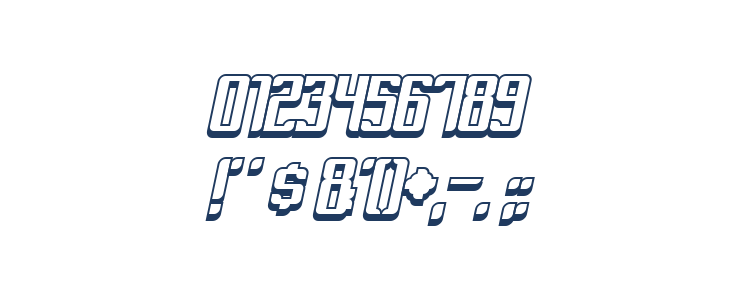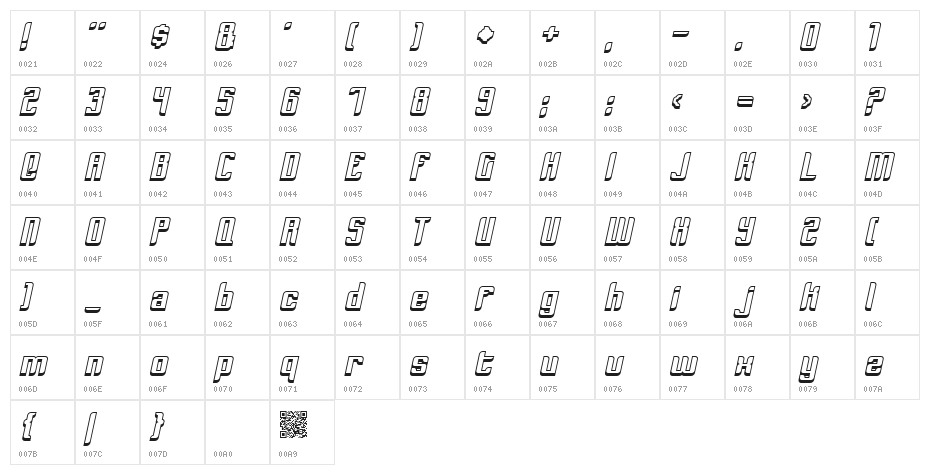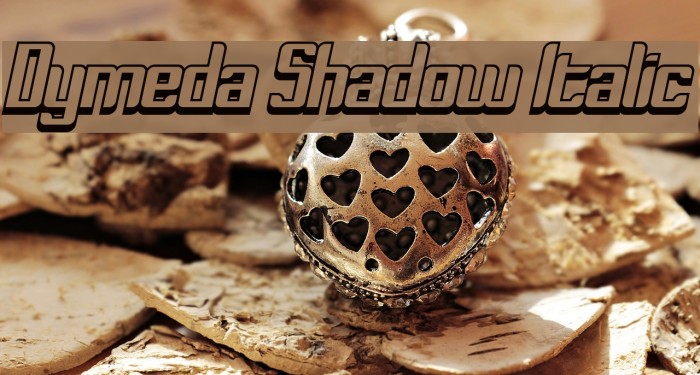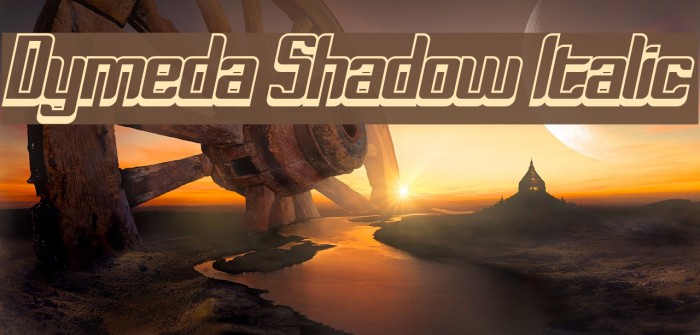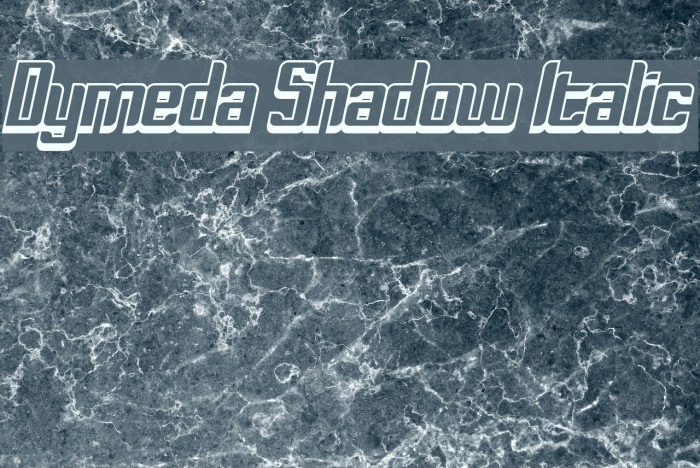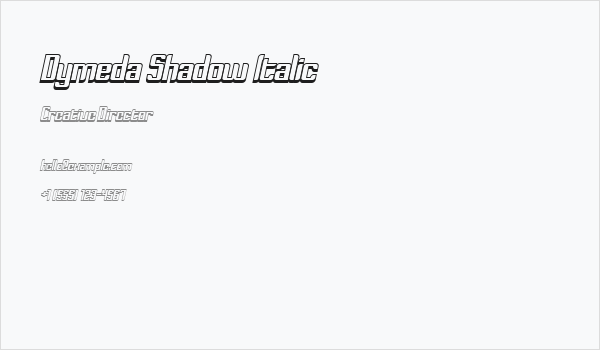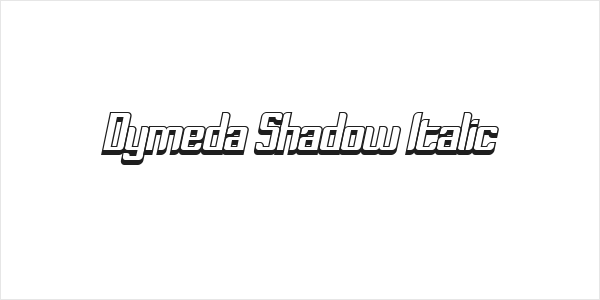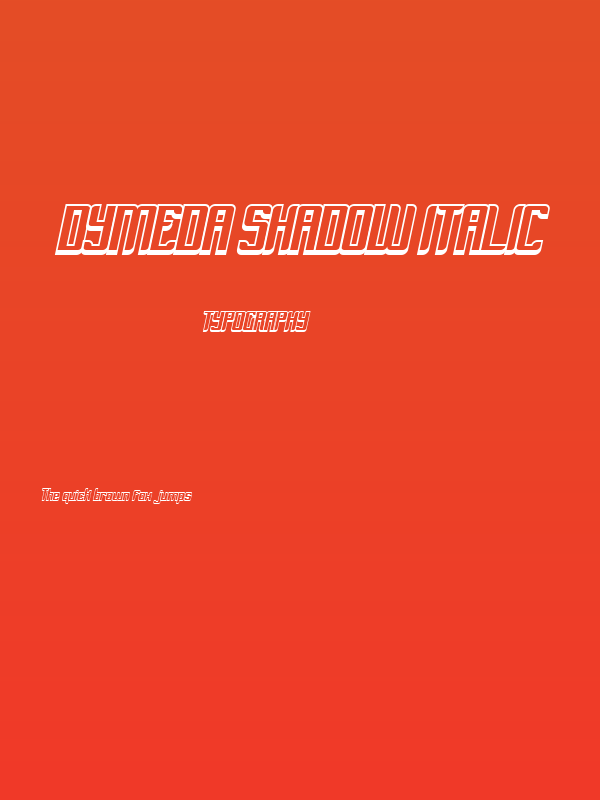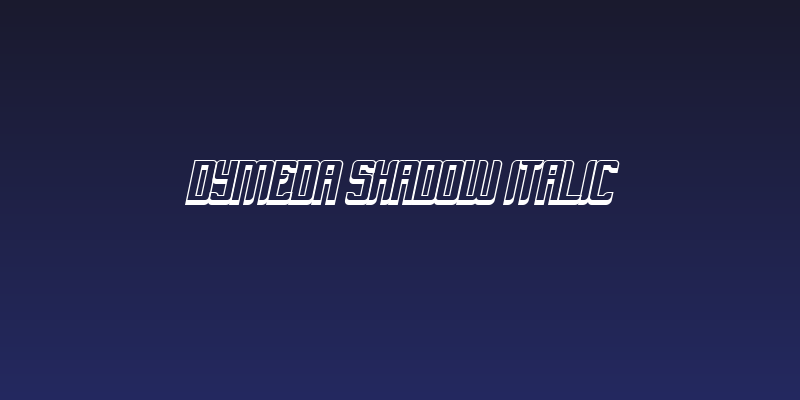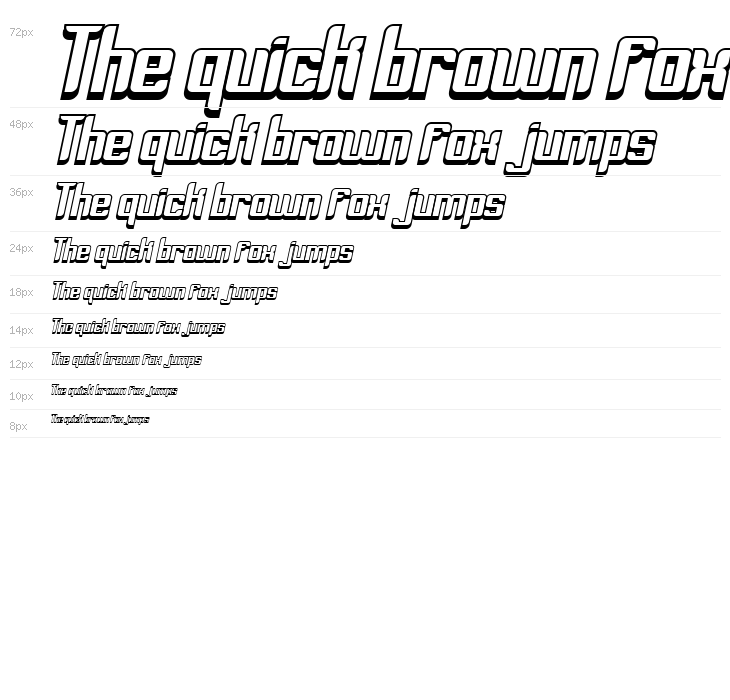
Dymeda Shadow Italic Font
Dymeda Shadow Italic Description
This font features a bold, italicized style with a distinct shadow effect that gives it a three-dimensional appearance. The characters are outlined, creating a striking visual impact that is both modern and dynamic. The uppercase and lowercase letters maintain a consistent design, with smooth curves and sharp angles that enhance readability. The numerals and special characters are equally bold, ensuring uniformity across all text elements. This font's unique style makes it ideal for attention-grabbing headlines and creative design projects.
| Proposed Projects | Ideal for posters, logos, branding, and any design project requiring a bold, eye-catching typeface. |